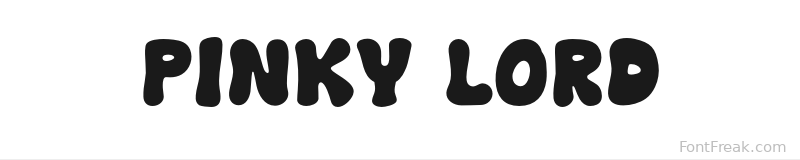
Pinky Lord
Pinky Lord, crafted by MJType in 2024, is a distinctive display font that captures attention with its playful yet commanding presence. This font leans towards a decorative style, characterized by its bold strokes and unique character shapes. The weight of the strokes varies, creating an engaging contrast that enhances its visual appeal. The letters exhibit ample spacing, contributing to a clean and legible appearance while maintaining a sense of whimsy with rounded edges and playful curves.
The versatility of the Pinky Lord font makes it an excellent choice for various applications. It shines in creative projects such as wedding invitations, where its lively personality adds a touch of charm and elegance. Additionally, this font is perfect for movie posters, allowing for bold titles that draw viewers in with their unique flair. Restaurant menus can benefit from Pinky Lord’s engaging style, making dishes feel more inviting and exciting. Furthermore, it serves well in branding materials for small businesses, providing a memorable identity that stands out in crowded markets.
Target audiences for the Pinky Lord font include graphic designers seeking to elevate their projects with eye-catching typography, small business owners looking to establish a fun and approachable brand image, and content creators needing a distinctive typeface for social media graphics or promotional materials.
What sets the Pinky Lord font apart is its ability to balance fun and sophistication, making it a versatile tool for any creative endeavor. The Pinky Lord font free download offers a fantastic opportunity for designers and creators to incorporate this unique typeface into their work, ensuring their projects captivate and resonate with their audience.